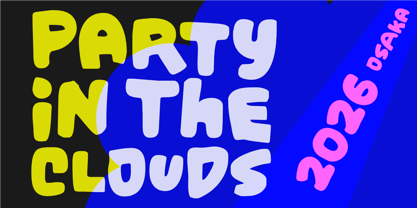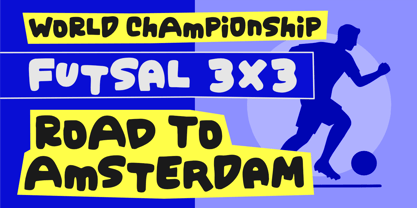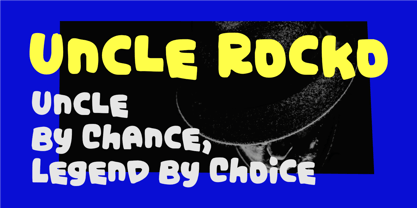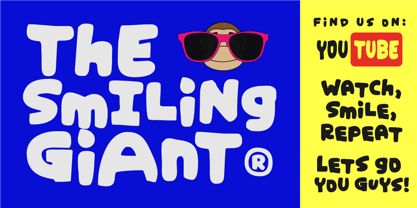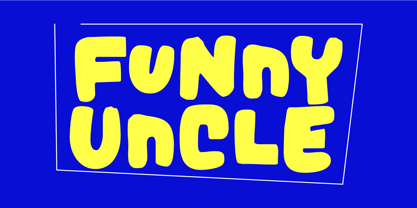
Funny Uncle
The Funny Uncle Font Family was designed by Aldy Sidik and published by Epiclinez. Funny Uncle contains 1 styles. More about this family
Funny Uncle is a bold, cute display font with a playful personality and a big sense of humor. Designed to feel friendly, goofy, and full of charm, this font brings fun energy to every word—just like your favorite uncle who always makes everyone laugh. With chunky letterforms, rounded curves, and a warm, expressive style, Funny Uncle is perfect for kids designs, funny quotes, T-shirts, stickers, posters, social media, logos, packaging, cartoons, and playful branding. Its cheerful look makes it ideal for projects that need to feel lighthearted, joyful, and approachable. Whether you’re creating apparel, content for kids, or humorous branding, Funny Uncle adds instant smile-power to your typography.